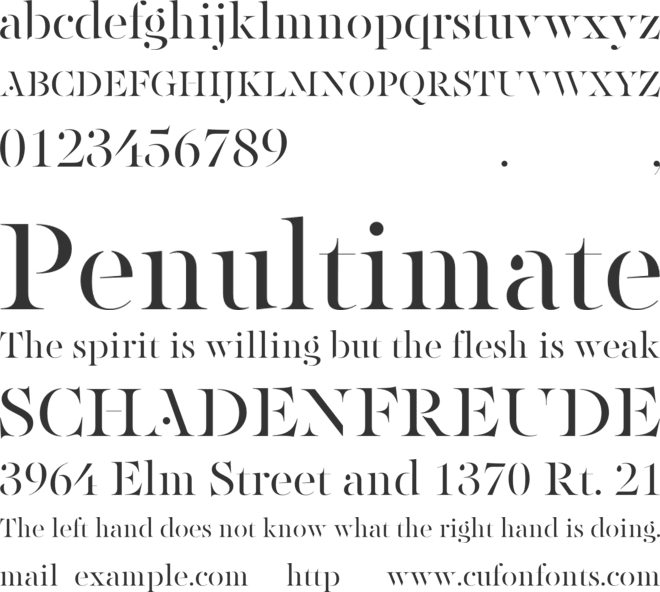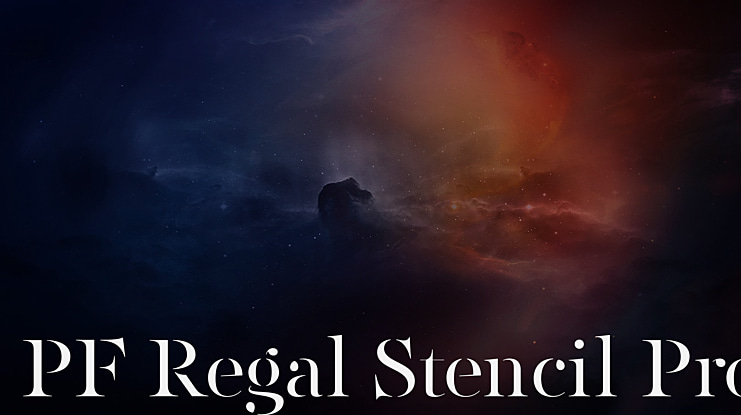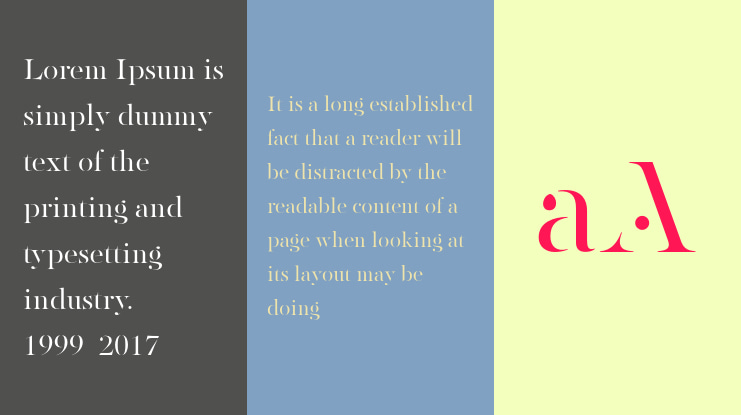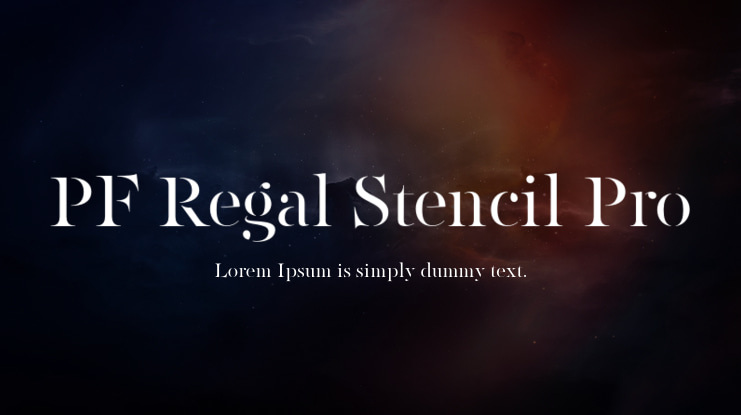
PF Regal Stencil Pro Font Family
Panos Vassiliou
This font is a high contrast stencil version of this seriesand is ideal for headlines and labels. The whole family is comprised of 10 weights with an average of 958 glyphs per weight. It supports simultaneously Latin, Cyrillic and Greek and comes with many alternate glyphs.
This font crafted specials for beauty-themed projects, ready to use on Magazine, Social Media, Branding, Logo, and Many more that needs Modern touches.